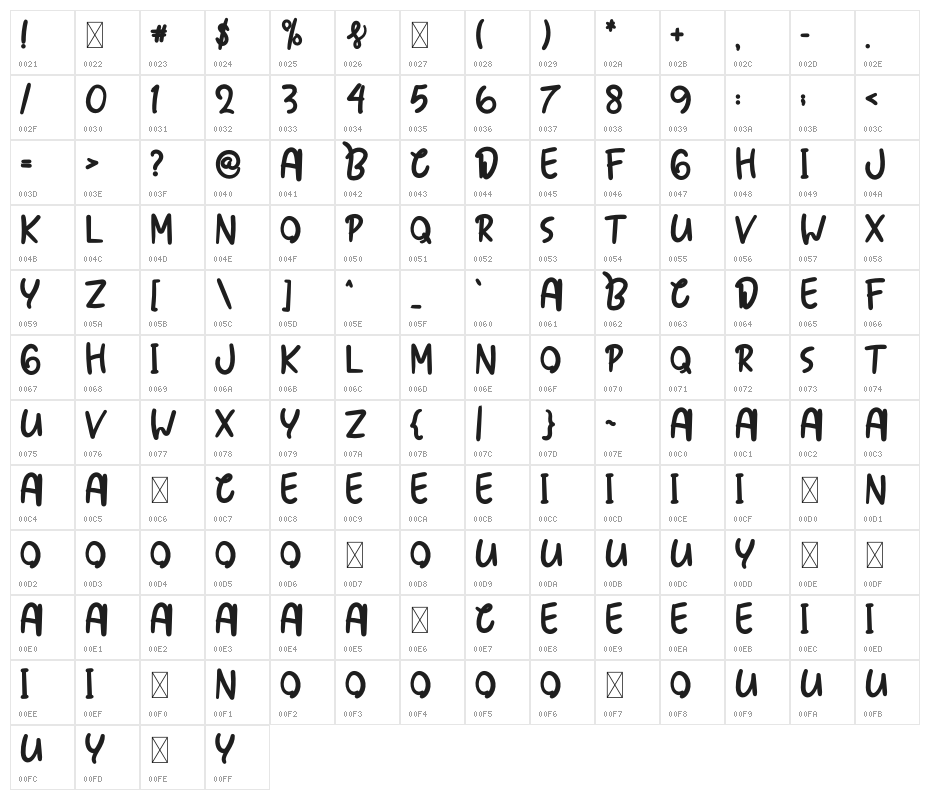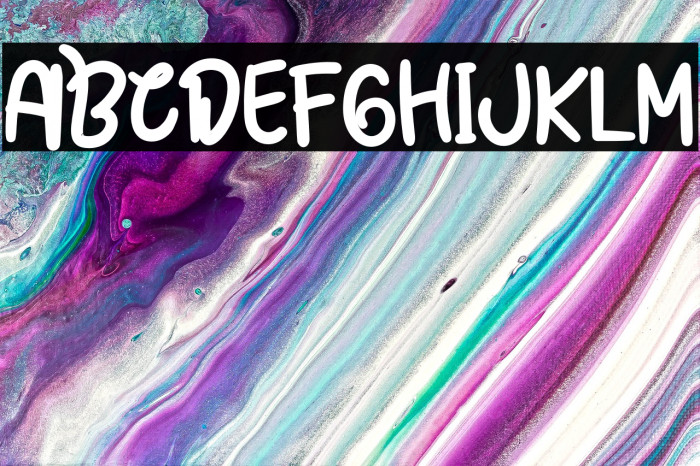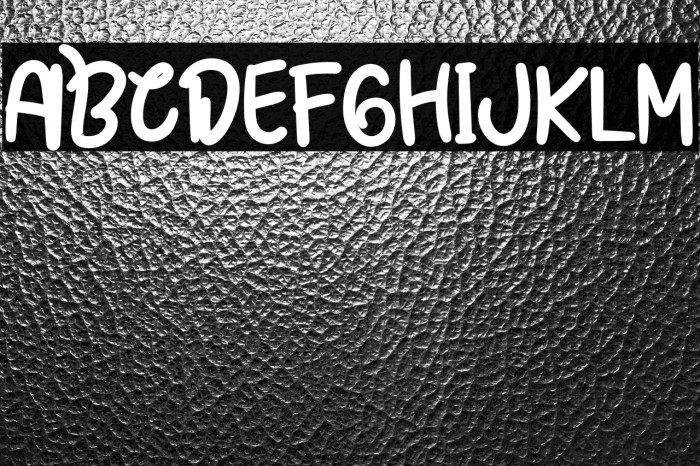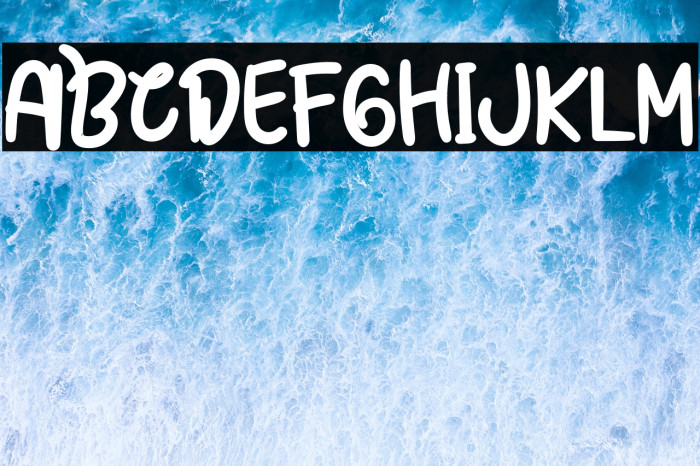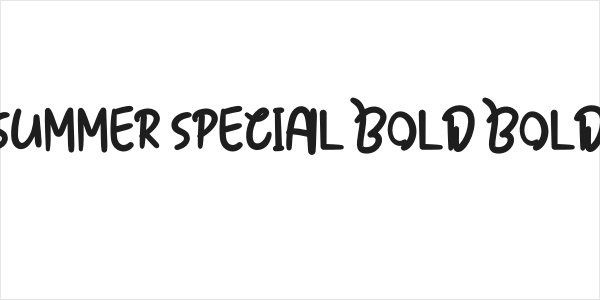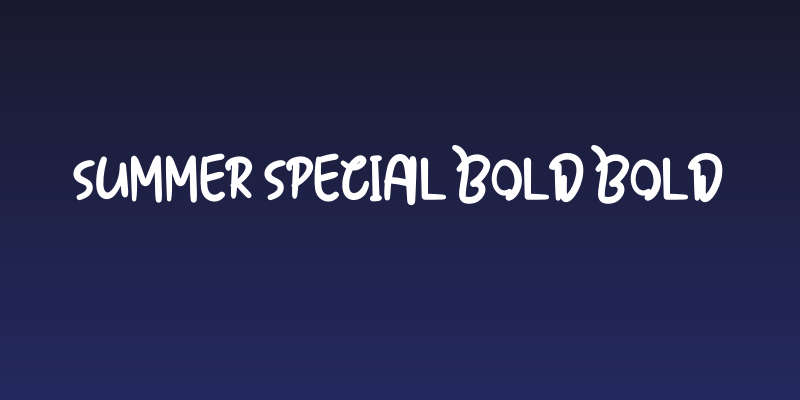
Summer Special Bold Bold Font
Summer Special Bold Bold Description
This font features a bold and playful handwritten style, characterized by its thick strokes and rounded edges. The letters are slightly irregular, giving it a casual and friendly appearance. The uppercase and lowercase letters maintain a consistent style, with a slight slant that adds to its dynamic feel. The numbers and special characters are equally bold, ensuring readability and a cohesive look across all characters. This font is perfect for projects that require a fun and approachable aesthetic.
| Proposed Projects | Ideal for children's books, playful branding, event invitations, and social media graphics. |